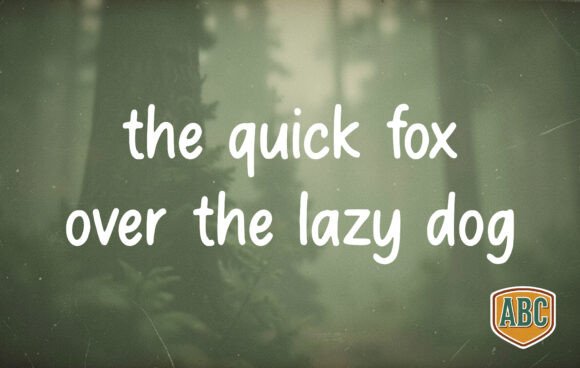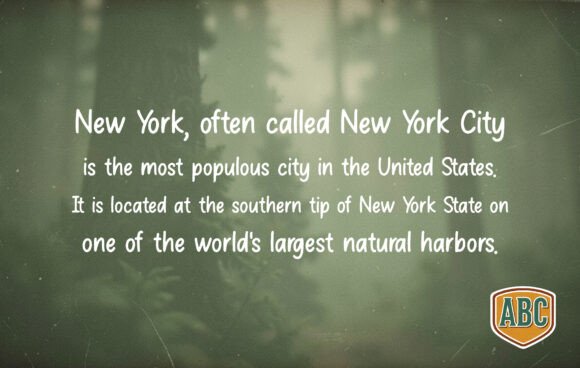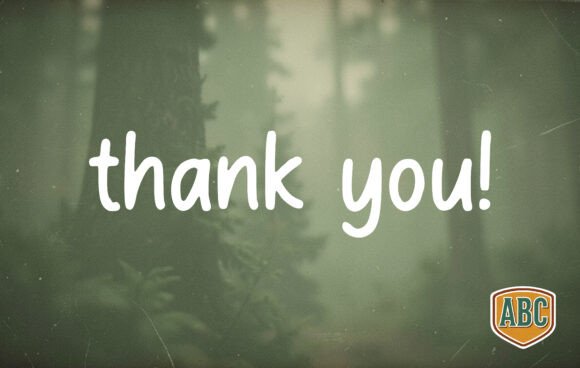
Bringing the Outdoors In: A Deep Dive into Forest Green Font
I still remember the design project that led me to discover Forest Green Font. I was working on a branding campaign for an eco-friendly startup, and I was struggling to find the perfect font that would convey their natural and sustainable vibe. That’s when I stumbled upon Forest Green, and it was love at first sight! The organic, handcrafted feel of this font was exactly what I needed to bring my design to life.
An Honest Review of Forest Green Font
- ✅ The unique blend of modern simplicity and natural imperfections, making it perfect for designs that need to feel approachable and grounded.
- ✅ The friendly, monolinear strokes that give the font a soulful, artisan personality.
- ✅ The high verticality and balanced, airy structure that ensure great readability.
- ✅ The versatility of the font, making it suitable for a wide range of projects, from sustainable branding to moody editorial layouts.
While Forest Green Font is an amazing typeface, it’s not without its quirks. For instance:
- 🤔 The font’s irregular, “wobbly” edges can make it challenging to use in certain contexts, such as body text or small font sizes.
- ⚠️ Some users may find the font’s organic feel too subtle or understated for their taste.
The Story Behind Forest Green Font
Forest Green Font was designed with the goal of capturing the natural, organic feel of the great outdoors. The designer, inspired by the imperfections and irregularities of nature, created a typeface that blends modern simplicity with a gentle, handcrafted touch. The result is a font that feels both approachable and grounded, making it perfect for designs that need to convey a sense of sustainability and eco-friendliness.
| Font Name | Forest Green Font |
| What is Forest Green Font best suited for? | Forest Green Font is perfect for designs that need to feel approachable, grounded, and sustainable, such as eco-friendly branding, editorial design, and creative projects. |
| Is Forest Green Font suitable for body text? | While Forest Green Font can be used for body text, its irregular, “wobbly” edges may make it challenging to read at small font sizes. It’s best used for headlines, titles, and short-form content. |